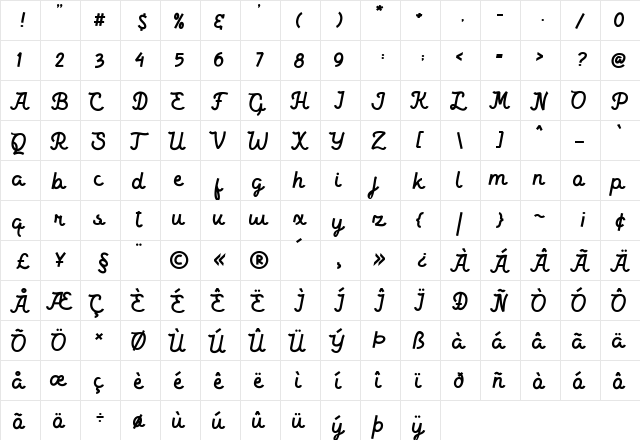
Crestone Regular
| Foundry | alexaType |
| Designer | alexaType |
Design Context for Crestone Typeface
Crestone is a composed and adaptable typeface that performs quietly and consistently across a wide range of design contexts.